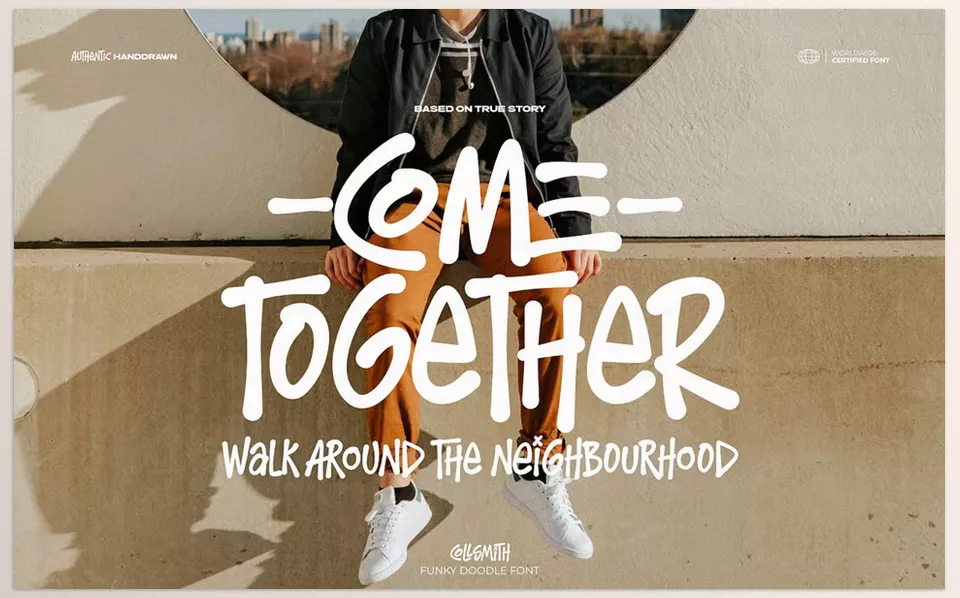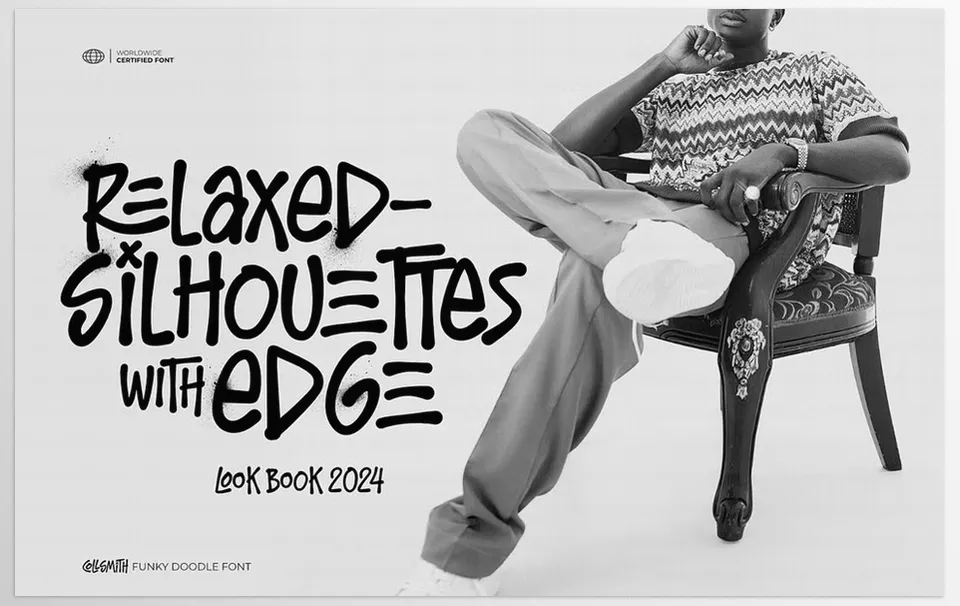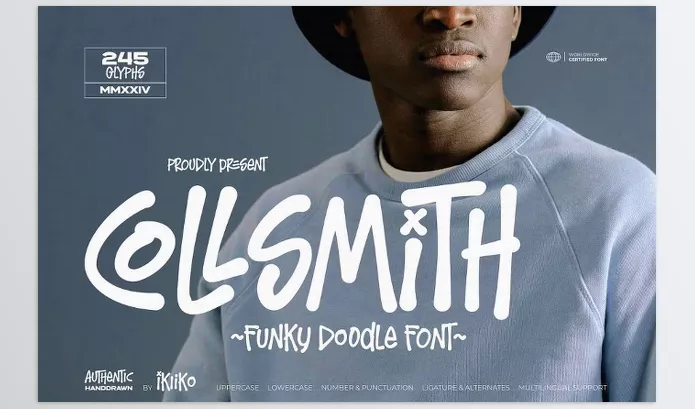
Creative Market – Collsmith Funky Doodle Font is ideal for branding, fashion, advertisements, and social media graphics. The Collsmith Funky Doodle font stylishly merges cuteness with elegance, containing distinctive symbols alongside creative alternatives.
ikiiko – Collsmith Funky Doodle Font Features
• One of a kind Doodle Style: It adds a quirky touch to any graphic design project because of its flexibility.
• Stylish and Sophisticated: A one-of-a-kind, hands-on design is built with a unique doodle charm.
• Versatile Usage: Doodle your way to everything from slogans to posters and from fashion shows to logos.
• Multilingual Support: With paved borders, it is free for worldwide recognition.
• Extensive Character Set: Versatility with limitless creativity on your hands.
• Doodle Your Way: A sprightly twist with smiley endings makes the Font Idyllic.
• Quirky Elegance: Sophisticated elegance tied together with witty fun.
• Design Freedom: Fashion for fun or fun for fashion, the versatility on offer makes it adaptable to every requirement.
• Global Reach: Setting zero boundaries with multilingual access makes it best suited for a vast audience.
• Creative Character Set: A complete set of letters, numbers, symbols and commendable creativity.
Creative Market – Collsmith Funky Doodle Font Overview
Image 1: Chic and refined, with a touch of playful elegance and a high-end design.
Creative Market - Collsmith Funky Doodle Font - Chic and refined, with a touch of playful elegance and a high-end design.
Image 2: A vast character selection, offering boundless creative freedom and infinite possibilities.
Creative Market - Collsmith Funky Doodle Font - A vast character selection, offering boundless creative freedom and infinite possibilities.